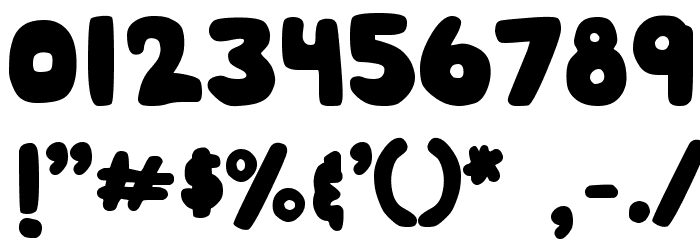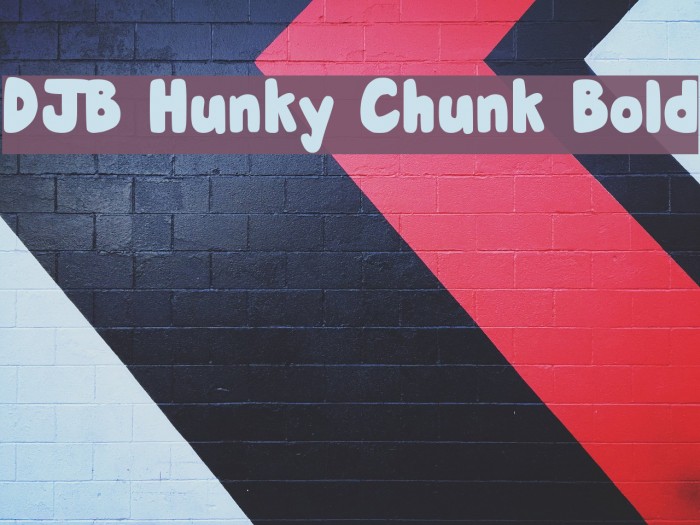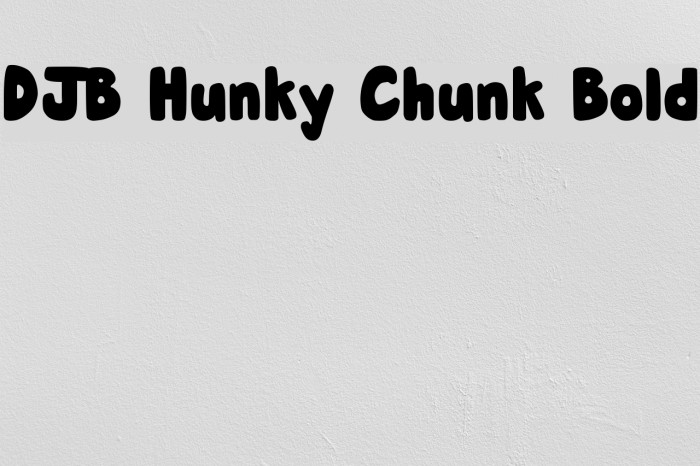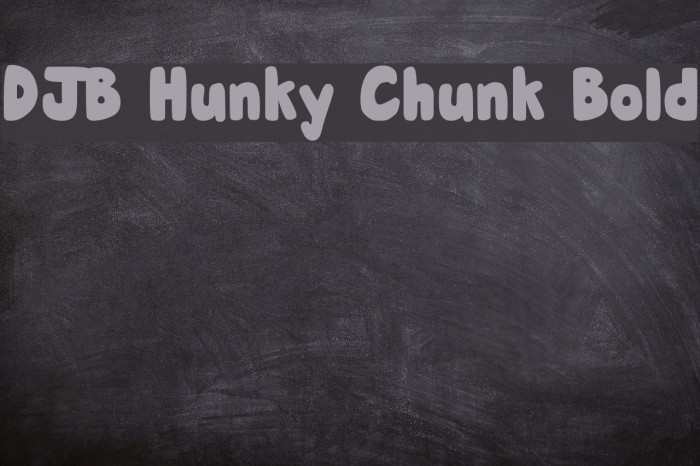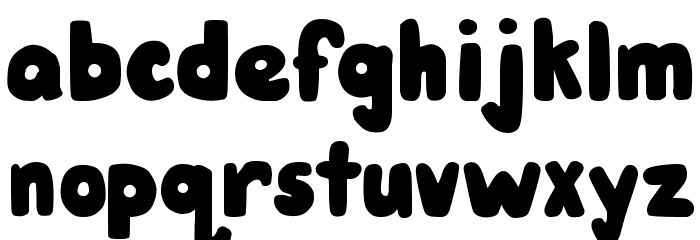
DJB Hunky Chunk Bold Font
DJB Hunky Chunk Bold Description
This font features a bold and playful style with rounded, chunky letters that convey a sense of fun and approachability. The characters are uniformly thick, giving them a strong presence on the page. The rounded edges and slightly irregular shapes add a whimsical touch, making it ideal for projects that require a friendly and informal tone. The font includes a full set of uppercase and lowercase letters, numbers, and a variety of special characters, ensuring versatility in design applications.
A bold, playful font with rounded, chunky letters and a whimsical style from Uncategorized fonts.
- Font: DJB Hunky Chunk Bold
- Proposed Projects: Perfect for children's books, playful branding, posters, and casual invitations.
- Overall Style: Playful, Whimsical